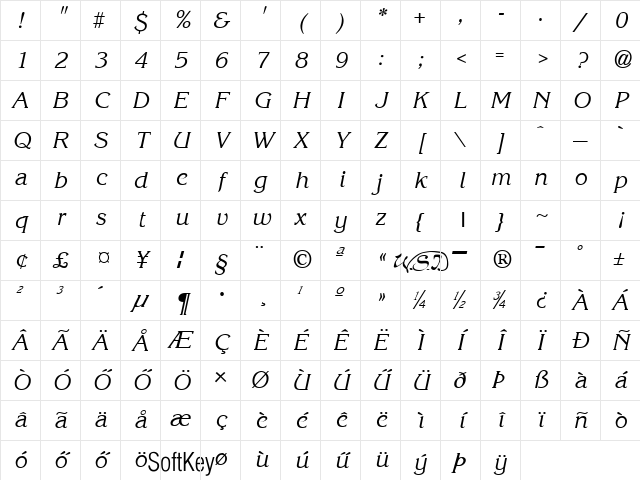
H_KRONE4 Regular
Design Context for H_KRONE4
H_KRONE4 is a composed and adaptable typeface that performs quietly and consistently across a wide range of design contexts.